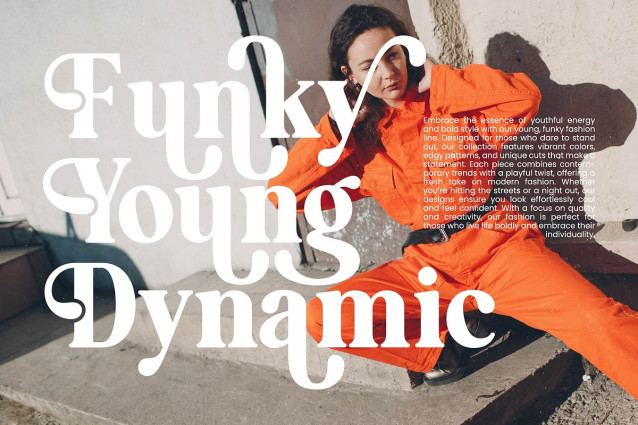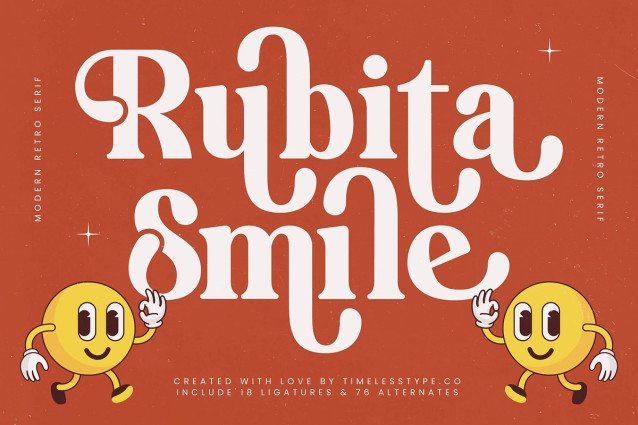
Rubita Smile Font
Rubita Smile Font – Modern Retro Serif , from Timelesstype.Co , Rubita Smile brings a cheerful and sophisticated energy to your creative canvas, inviting a sense of nostalgia with a contemporary twist. This typeface dances between elegance and playfulness, making every word feel like a celebration of design.
Rooted in the golden era of 70s typography, this font draws inspiration from the groovy curves and bold silhouettes of retro editorial layouts. It captures the essence of sun-drenched afternoons and the effortless charm of vintage posters, reimagining them for a modern audience.
With its modern serif display qualities and striking high-contrast serif strokes, this typeface commands attention while maintaining a soft, approachable soul. It offers a unique editorial font aesthetic that provides an immediate branding impact, blending feminine curves with confident architectural lines.
Tapping into the current modern serif trend, this typeface is perfectly aligned with today’s shift toward expressive and character-driven typography. It satisfies the demand for editorial display fonts that feel both custom-made and timelessly chic.
This versatile typeface is an ideal choice for logo design and high-end branding projects where personality is key. It shines across editorial spreads, bold packaging concepts, romantic wedding stationery, and avant-garde fashion lookbooks.
The font is packed with creative possibilities, including a rich set of ligatures and unique alternates that allow for custom letter combinations. With extensive multilingual support and international characters, this collection ensures your message resonates globally with effortless grace.